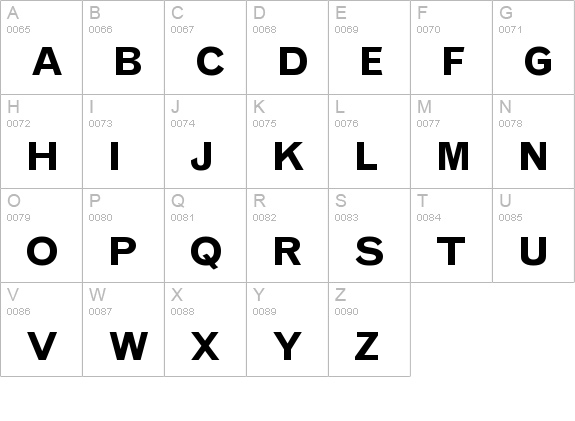
Groschen Bold Font Details
Groschen Bold is a strong, high-contrast variant in the Groschen typeface family \xE2\x80\x94 well suited to headlines, attention-grabbing titles, and strong calls-to-action.
Groschen Bold font is a modern and striking typeface that exudes confidence and sophistication. With its bold and impactful design, it is perfect for making a statement in any project, whether it's for branding, advertising, or design. The strong and sturdy letterforms command attention and convey a sense of strength and boldness. The best part is that Groschen Bold font is completely free to download at FontsMarket.com. This means you can access this powerful and stylish font without any cost, making it a valuable asset for any designer or creative professional. Don't miss out on the opportunity to enhance your projects with the impressive Groschen Bold font, available for free at FontsMarket.com.